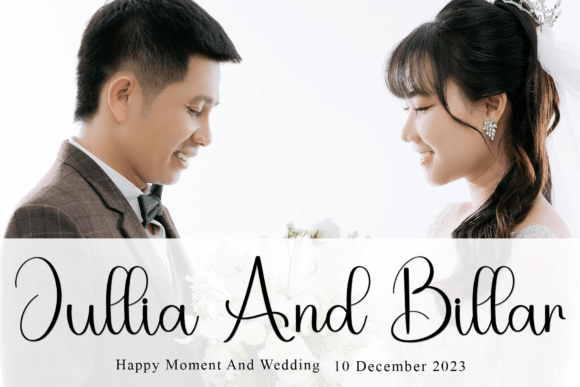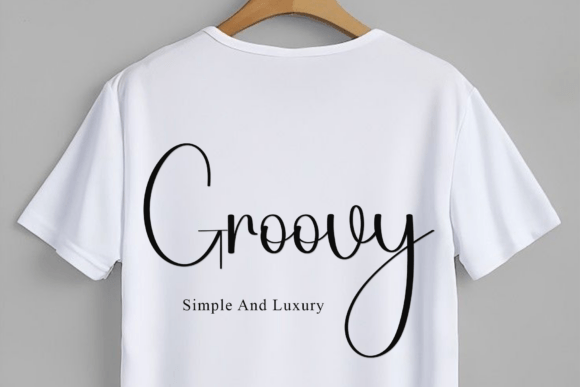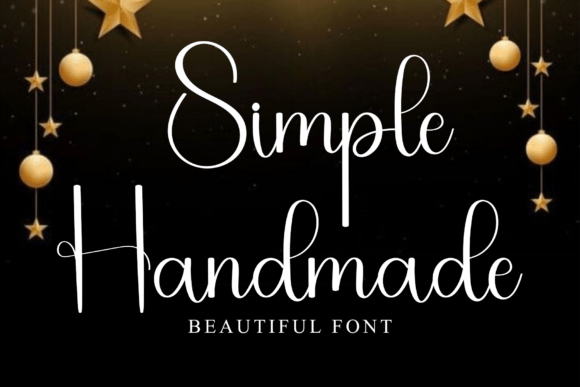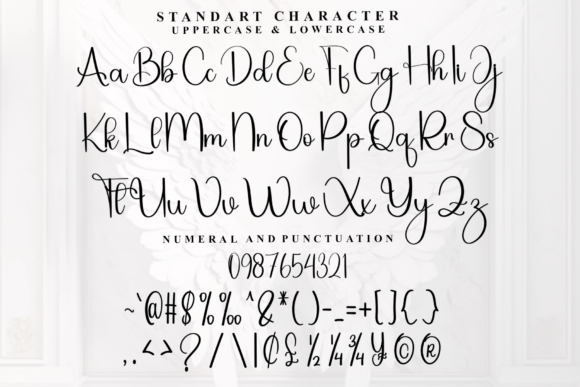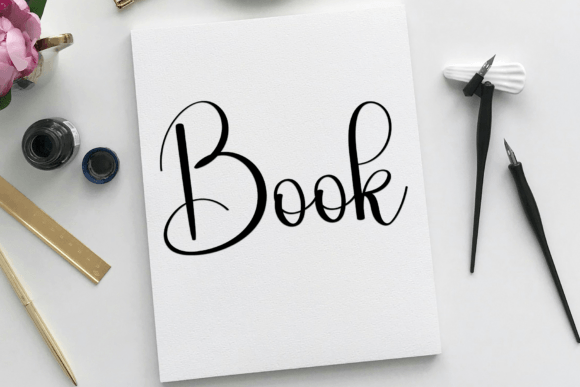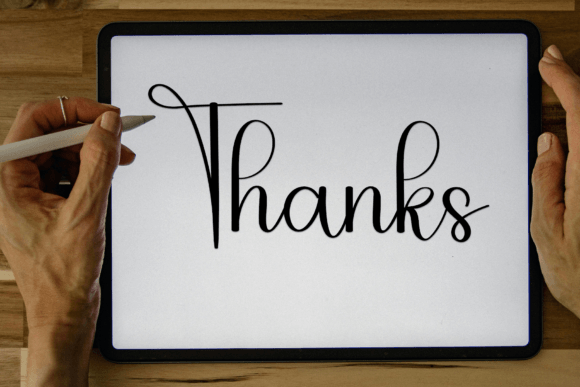
Introducing Delight Font: Elevate Your Designs with Elegance
Are you on the hunt for a font that exudes elegance and sophistication? Look no further than Delight Font, a stunning flowing handwritten font that is sure to capture your heart. With its incredibly distinct and timeless style, Delight Font is the perfect addition to your favorite projects, allowing you to create spectacular designs that leave a lasting impression.
The Essence of Delight Font
Delight Font is a beautiful, handcrafted font that boasts an elegant touch, making it ideal for designers and crafters seeking to add a touch of refinement to their work. Its flowing script and delicate lines evoke a sense of luxury and poise, perfect for creating eye-catching designs that stand out from the crowd.
Key Features of Delight Font
- Elegant and Refined: Delight Font features an elegant and refined design, perfect for creating sophisticated designs that exude luxury and style.
- Flowing Handwritten Style: The font’s flowing handwritten style gives it a personal and organic feel, making it perfect for adding a touch of warmth to your designs.
- Distinct and Timeless: Delight Font’s incredibly distinct and timeless style ensures that your designs will remain relevant and stylish for years to come.
- Versatile: Whether you’re working on a logo, invitation, or social media graphic, Delight Font is versatile enough to adapt to any design need.
Delight Font is a dream come true for designers and crafters seeking to elevate their work with a touch of elegance. Whether you’re creating:
- Logos and Branding: Use Delight Font to create stunning logos and branding materials that exude sophistication and style.
- Invitations and Stationery: Add a touch of luxury to your invitations, wedding stationery, and other paper goods with Delight Font.
- Social Media Graphics: Create eye-catching social media graphics that stand out from the crowd with Delight Font’s elegant and refined design.
- Packaging and Product Design: Use Delight Font to add a touch of elegance to your packaging and product designs, making them truly unforgettable.
Why Choose Delight Font?
With so many fonts available, why choose Delight Font? Here are just a few reasons why designers and crafters are falling in love with this stunning font:
- Unique and Distinctive: Delight Font’s unique and distinctive style ensures that your designs will stand out from the crowd.
- Elegant and Refined: The font’s elegant and refined design makes it perfect for creating sophisticated designs that exude luxury and style.
- Easy to Read: Despite its elegant and refined design, Delight Font remains easy to read, making it perfect for body text and headlines.
Get Ready to Fall in Love with Delight Font
If you’re looking for a font that will elevate your designs and add a touch of elegance, look no further than Delight Font. With its incredibly distinct and timeless style, Delight Font is sure to capture your heart and become your go-to font for all your design needs.
In conclusion, Delight Font is a stunning flowing handwritten font that is sure to delight designers and crafters alike. With its elegant and refined design, flowing script, and delicate lines, Delight Font is the perfect addition to your favorite projects. So why wait? Fall in love with Delight Font today and start creating spectacular designs that leave a lasting impression!